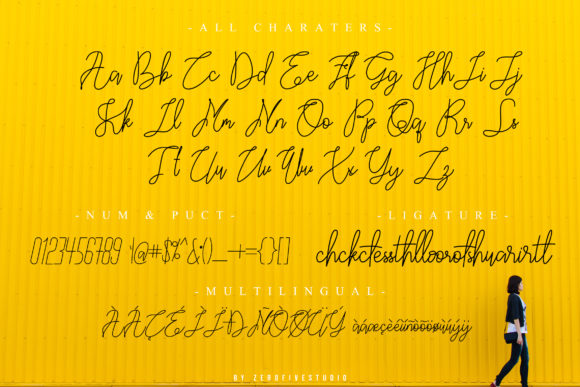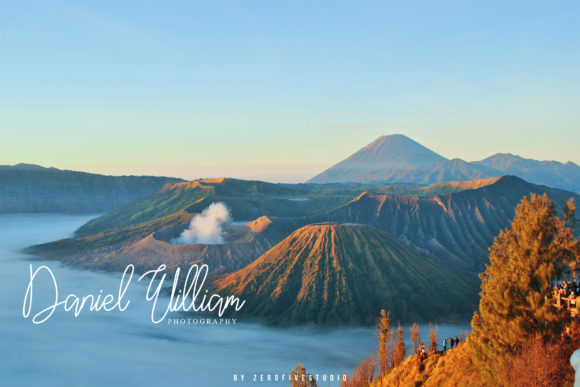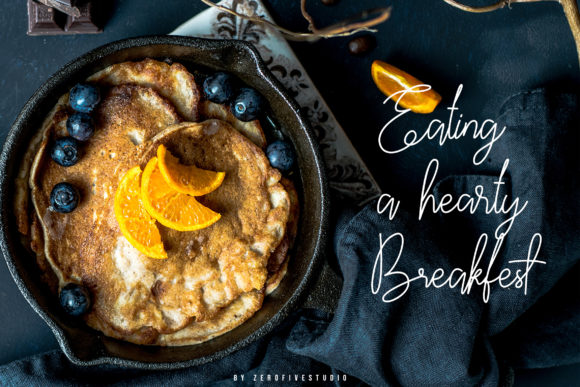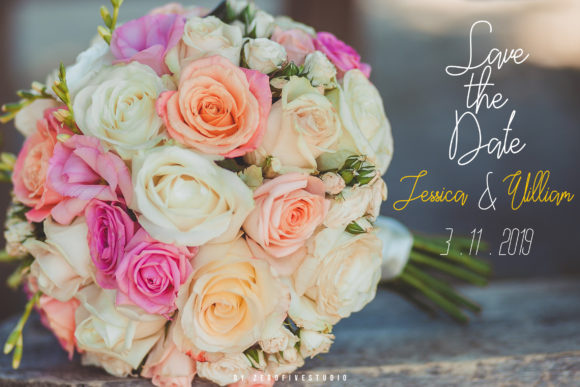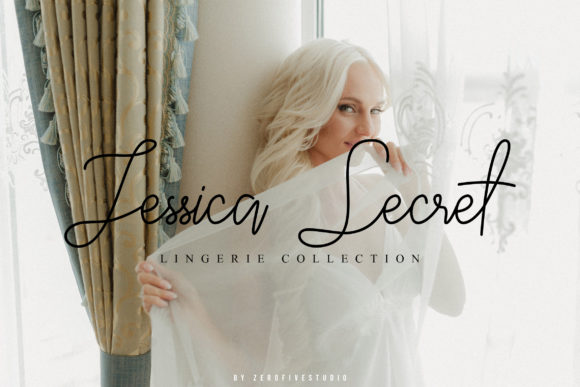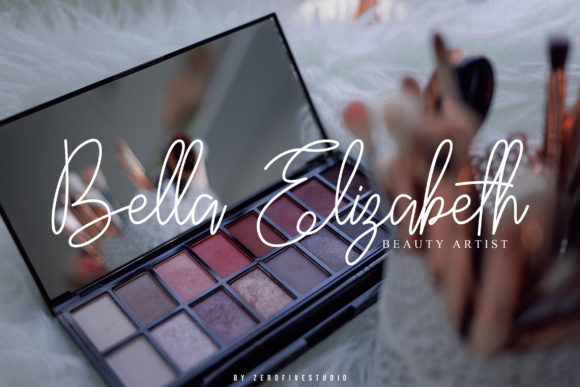
The Elegant Arabella Font: Elevate Your Designs with Class and Style
I’ll never forget the time I was working on a wedding invitation project, and my client asked for a font that exuded elegance and sophistication. I scoured the internet, tried out countless fonts, but nothing seemed quite right. That was until I stumbled upon the Arabella font. Its casual yet refined appearance instantly caught my attention, and I knew I had found the perfect fit. In this article, I’ll share with you why I’m obsessed with the Arabella font and how you can make the most of its beautiful features in your designs.
A Personal Review: What I Love About Arabella
Arabella is indeed an elegant font that brings a unique classy style to any design project. Here are some things I love about it:
- ✨ Elegant and refined: Arabella has a sophisticated feel to it, making it perfect for designs that require a touch of luxury.
- ✅ Highly versatile: This font works beautifully for both digital and print projects, from wedding invitations to branding materials.
- 💫 Easy to read: Despite its elegant appearance, Arabella remains highly legible, even at smaller font sizes.
While Arabella is an excellent font, there are a few minor quirks to be aware of:
- 🤔 Limited availability of certain characters: Some special characters or glyphs might not be available, which could be a limitation for certain projects.
- ⚠️ May not work well with bold or italic styles: Arabella’s elegance shines best in its regular or light weights; using bold or italic styles might compromise its refined appearance.
The Story Behind Arabella
While the origins of Arabella might be shrouded in mystery, it’s clear that this font was designed with elegance and sophistication in mind. Imagine a designer, sipping coffee in a charming café, sketching out ideas for a font that would capture the essence of luxury and refinement. That’s how Arabella was born – a beautiful, timeless font that would bring class and style to any design project.
| What type of projects is Arabella best suited for? | Arabella is highly versatile and works beautifully for wedding invitations, branding materials, luxury packaging, and more. |